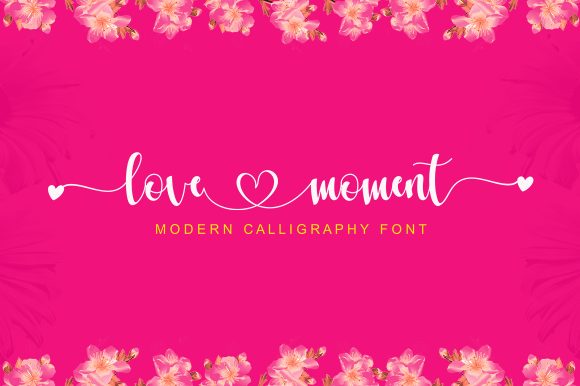
Immerse yourself in the world of Love Moment Font, a captivating script font family meticulously crafted to add a touch of charm and elegance to your creative endeavors. This font is not just a collection of letters; it's an artistic masterpiece that will transform your designs into captivating works of art.
Love Moment Font is a symphony of curves, swirls, and flourishes, flowing effortlessly to create a visual delight. Its organic and playful nature lends itself perfectly to handwritten notes, invitations, posters, and any project that calls for a personal and heartfelt touch.
With Love Moment Font, you can effortlessly evoke emotions and create designs that resonate with your audience. Whether you're a seasoned designer or just starting, this font will empower you to express yourself in a way that leaves a lasting impression.
Picture this: a poster adorned with the Love Moment Font, its graceful lines dancing across the page, inviting passersby to delve into a world of enchantment. Or, envision a wedding invitation penned in this elegant script, carrying the promise of a love story unfolding.
With Love Moment Font, you'll discover a world of creative possibilities, where your imagination knows no bounds. Unleash your inner artist and let this font guide you on a journey of self-expression and creativity.
Love Moment Font is more than just a font; it's an experience that will ignite your passion for design. Its versatility and charm will captivate your audience, leaving them enraptured by your creations.